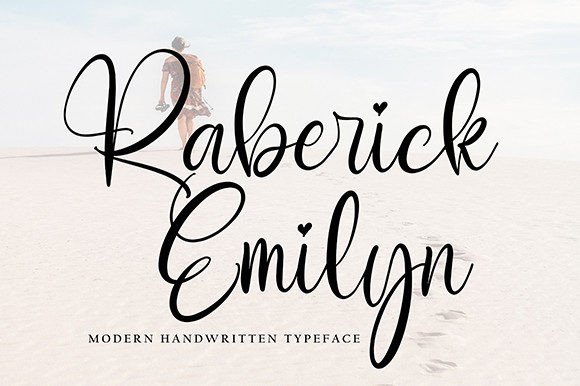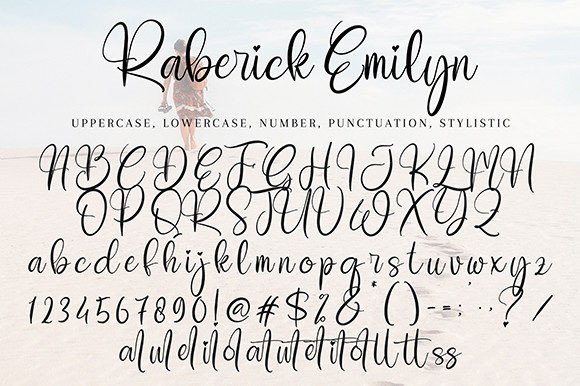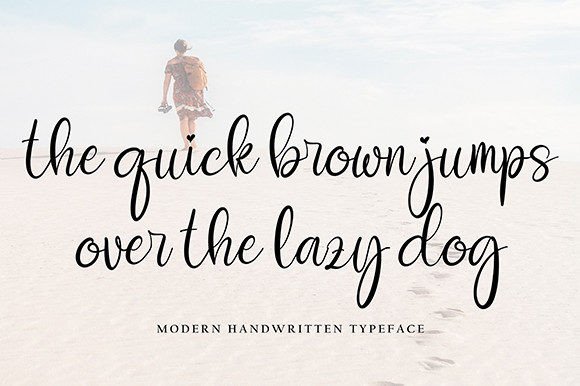
About Raberick Emilyn Font
“Raberick Emilyn” is not just a font; it’s a lovely and delicate script that radiates with elegance and class. Meticulously crafted, this font is designed for those who seek a beautiful and refreshing aesthetic for their designs. Whether you’re working on invitations, branding, or other creative projects, “Raberick Emilyn” adds a touch of sophistication and beauty.
The elegance and class of “Raberick Emilyn” are immediately apparent in its script design. Each letter is delicately crafted, contributing to an overall aesthetic that is refined and graceful. This makes it an ideal choice for projects that demand a high level of sophistication and a timeless look.
The refreshing look of “Raberick Emilyn” becomes a defining feature, setting it apart in the realm of script fonts. Its delicate strokes and graceful curves add a touch of charm and uniqueness. Imagine it on wedding invitations, where its elegant script sets the tone for a romantic and stylish event.
Crafted with precision, “Raberick Emilyn” is a font that brings a refreshing and beautiful look to your designs. Its versatility ensures that it can be used across various design applications, from digital graphics to print materials, adding an elegant touch to each project.
In summary, “Raberick Emilyn” is more than just a font; it’s a design companion that brings elegance and beauty to your creative projects. Let it be the choice that adds a refreshing and sophisticated touch to your invitations, branding, and beyond. With “Raberick Emilyn,” every creation becomes an opportunity to showcase the beauty of delicate script design.